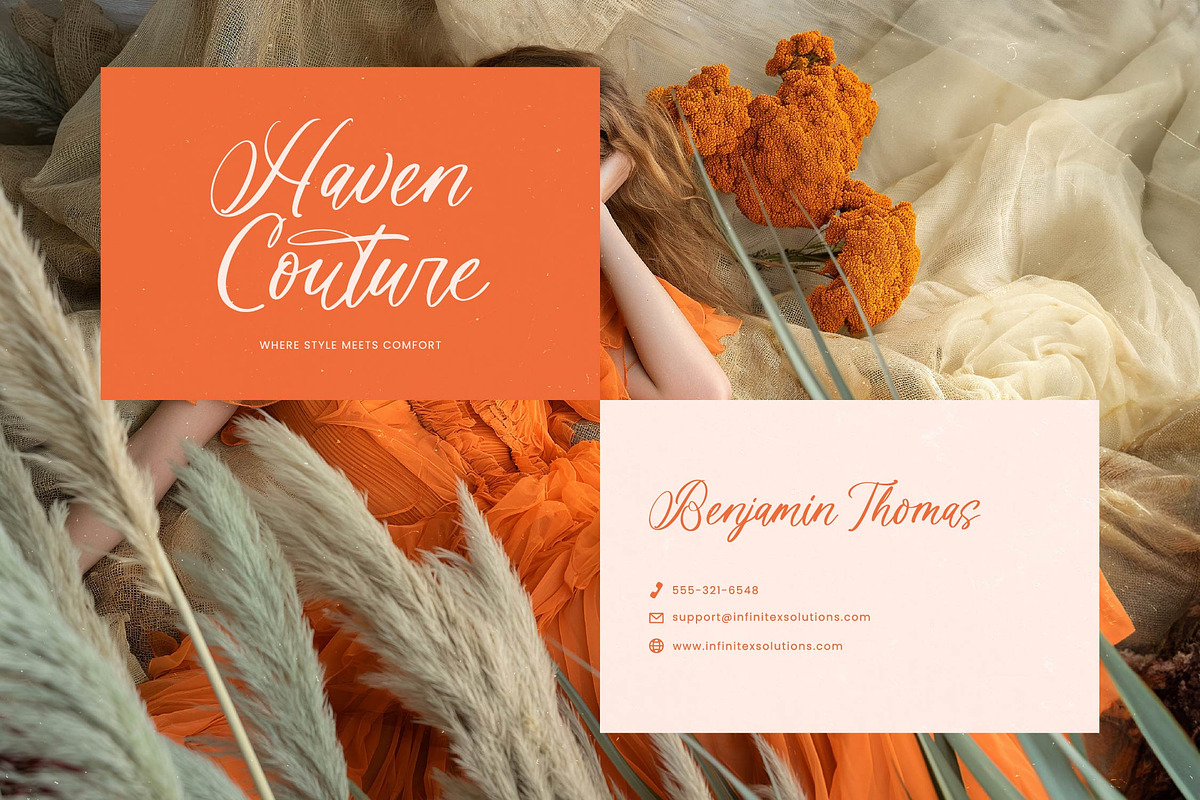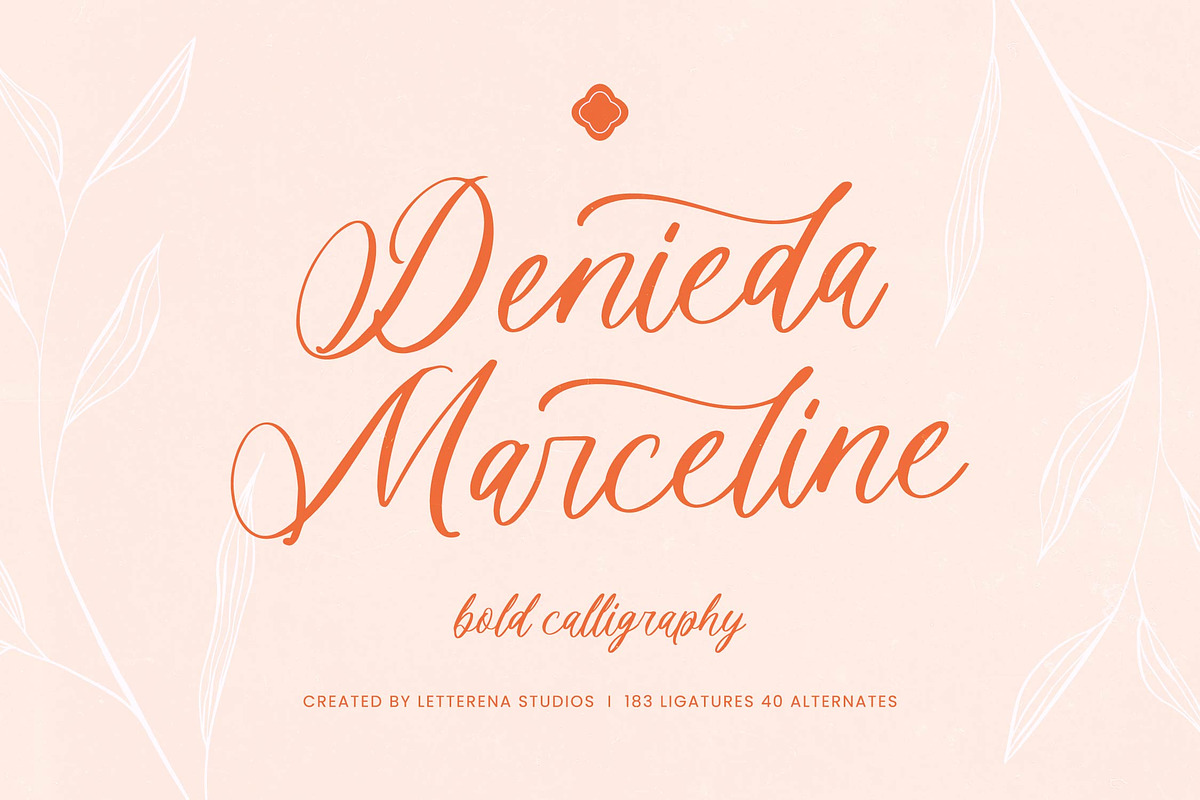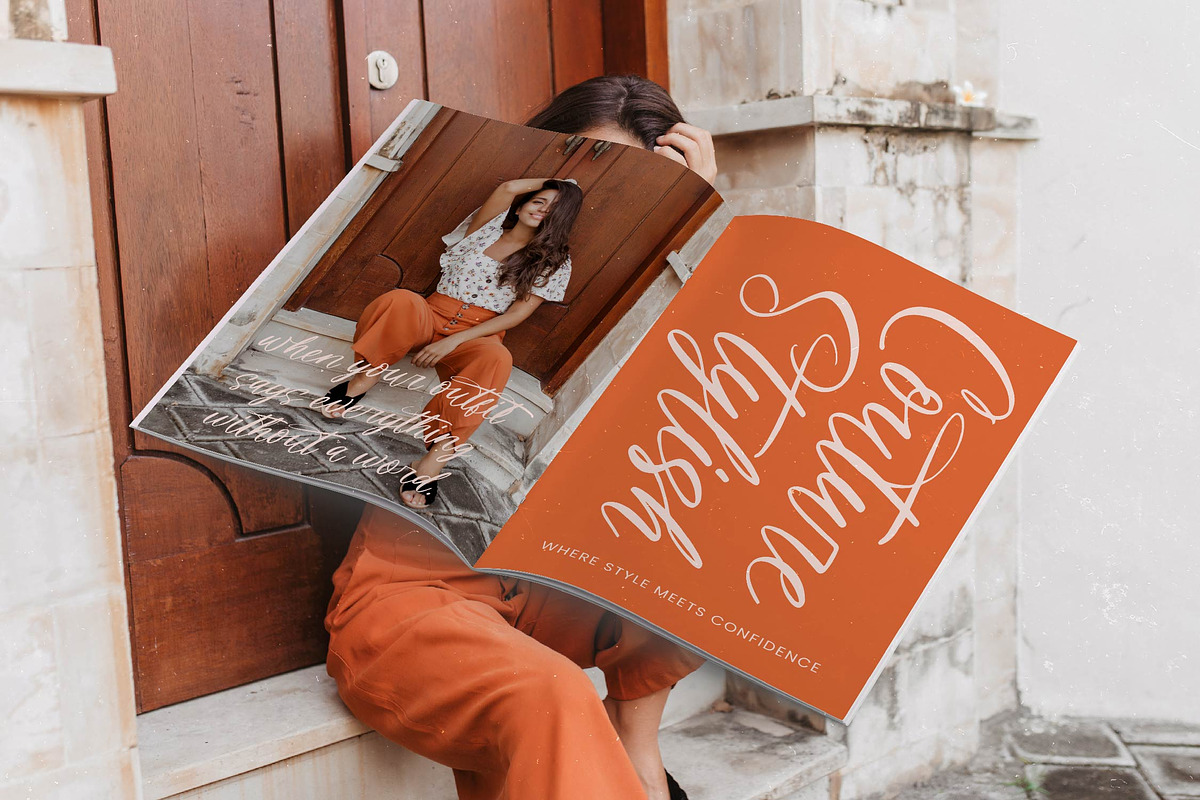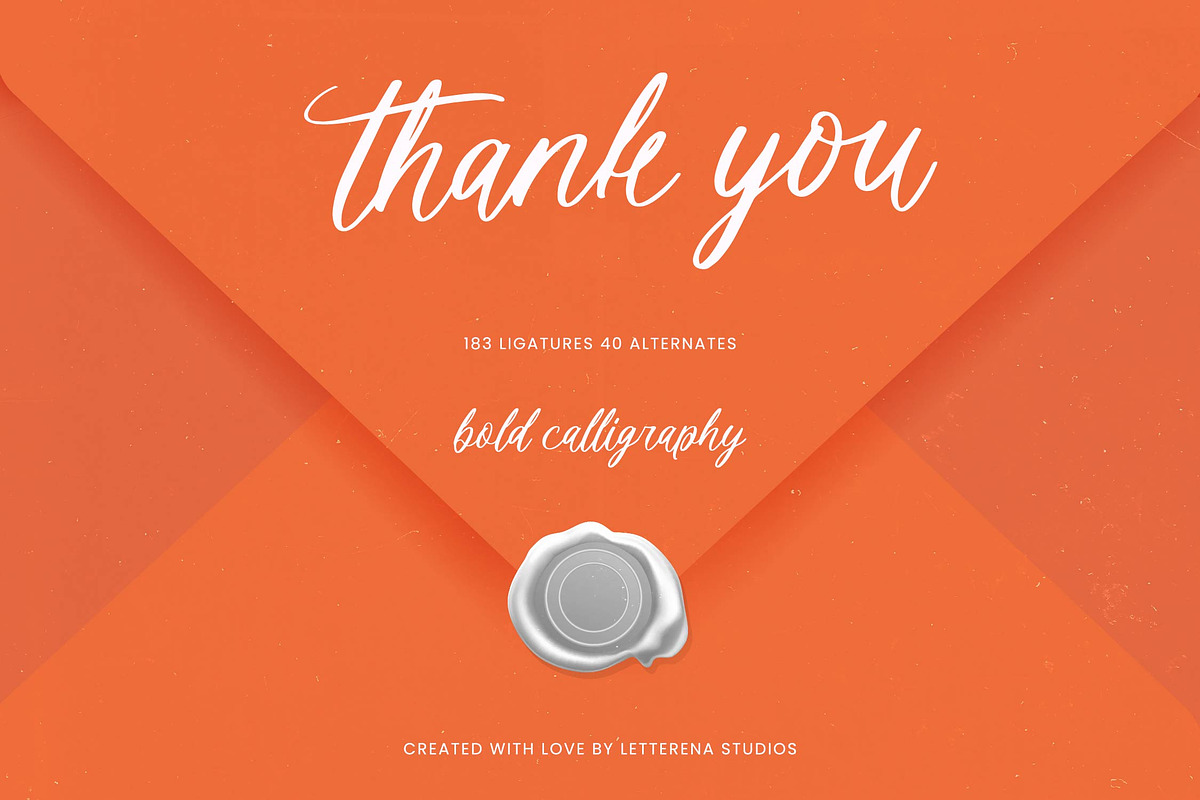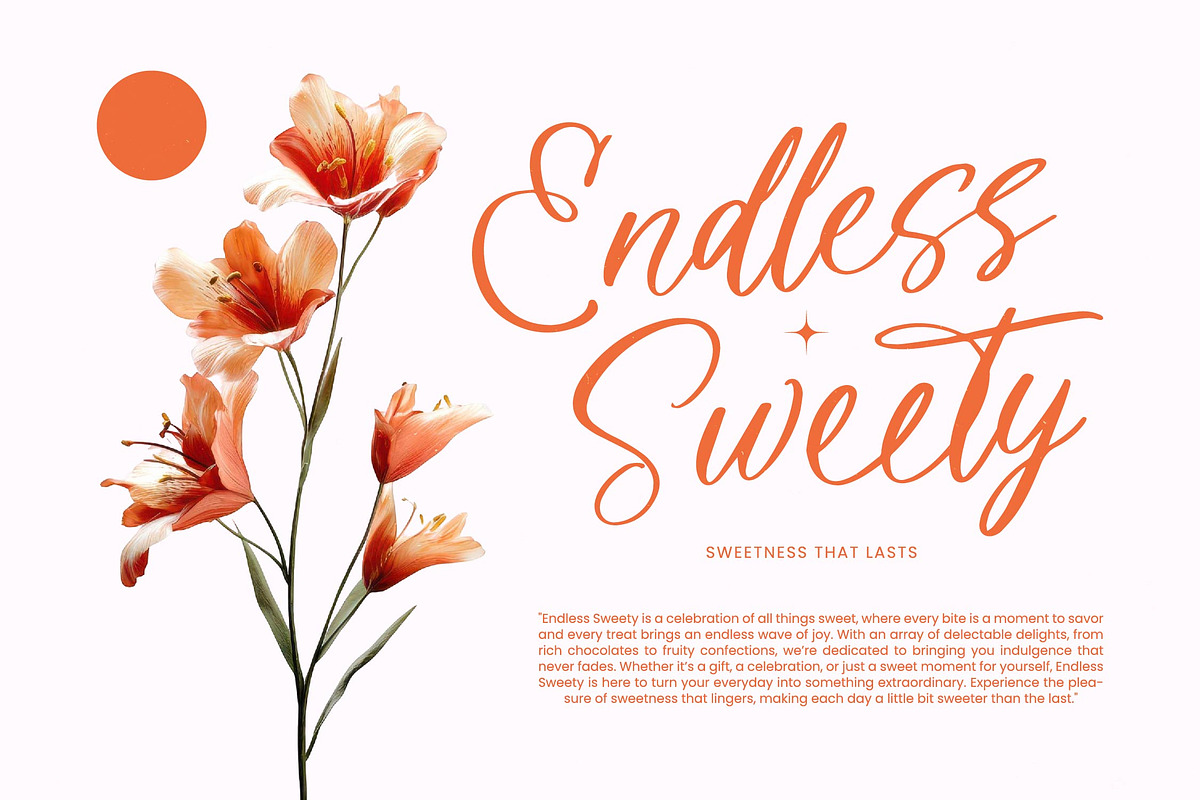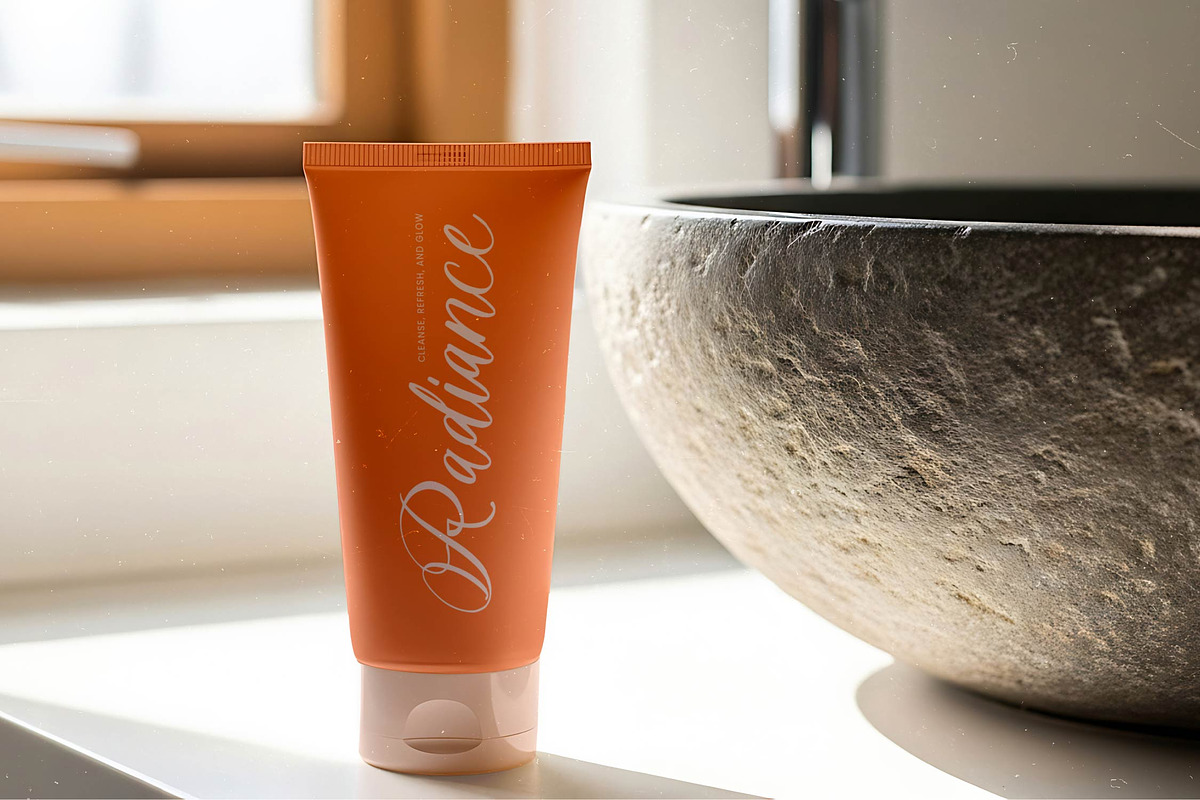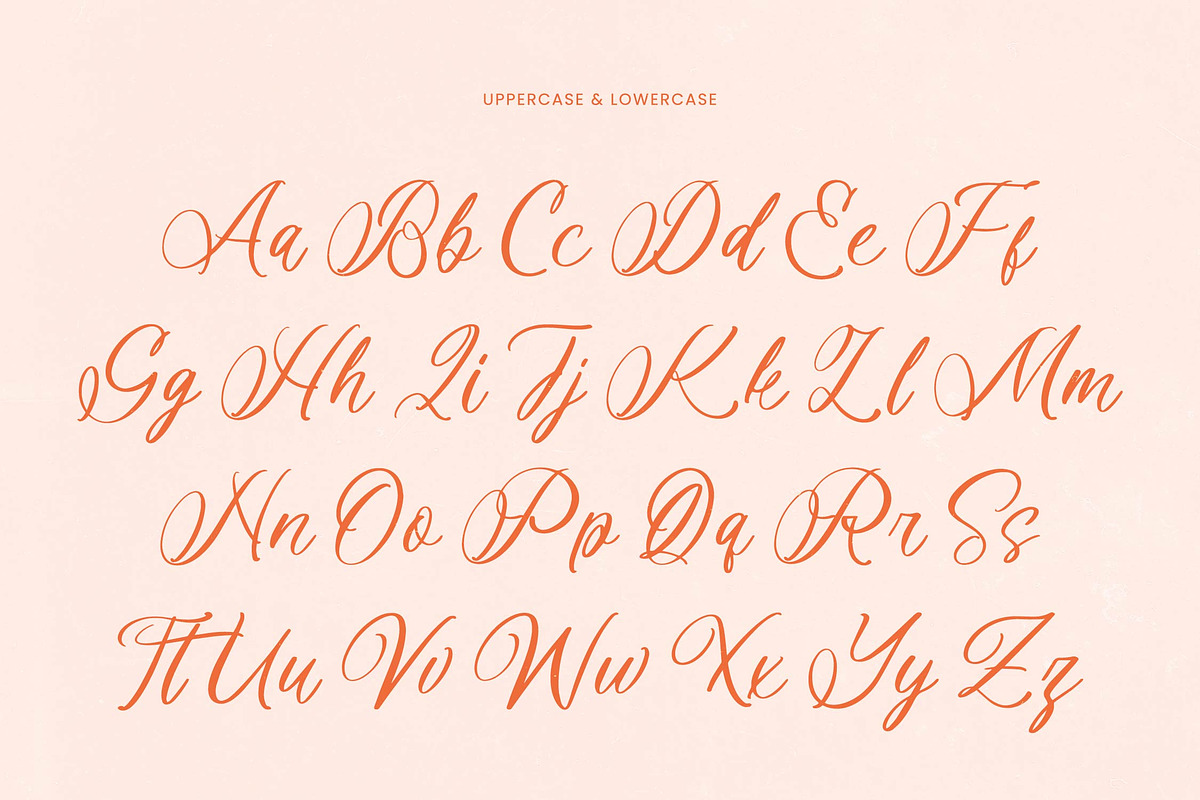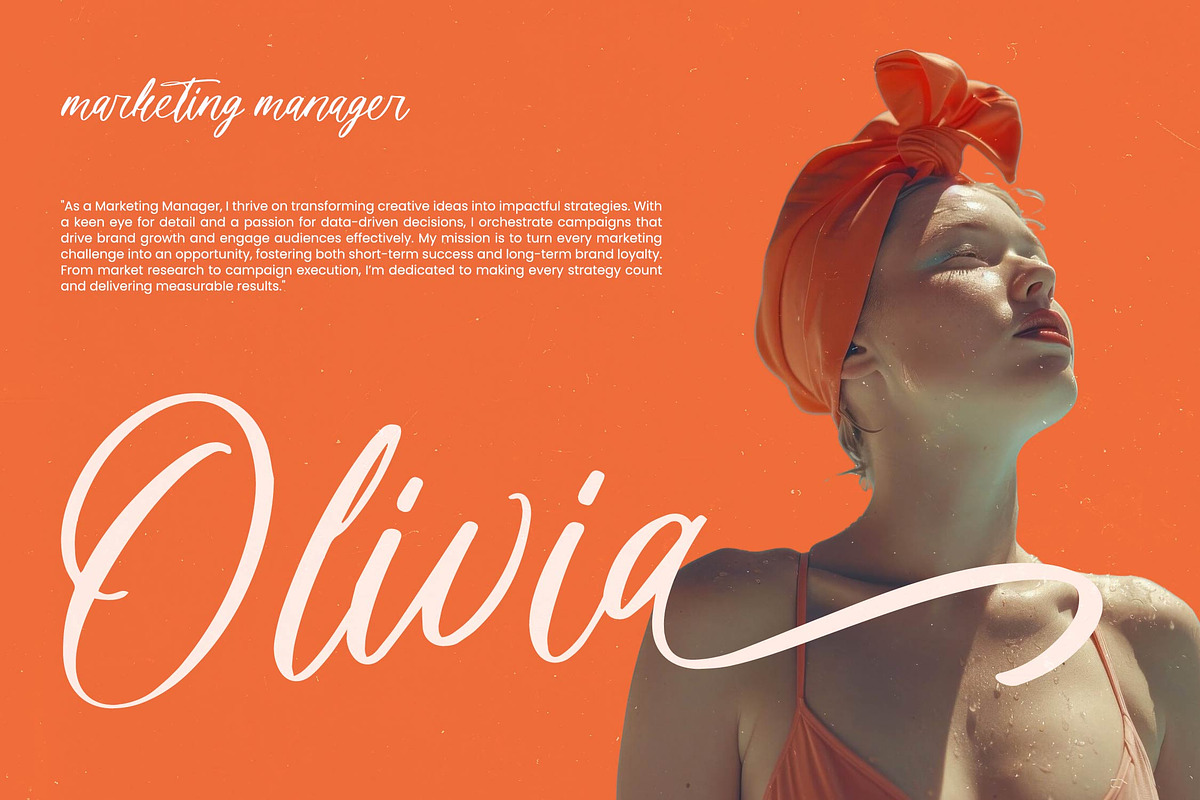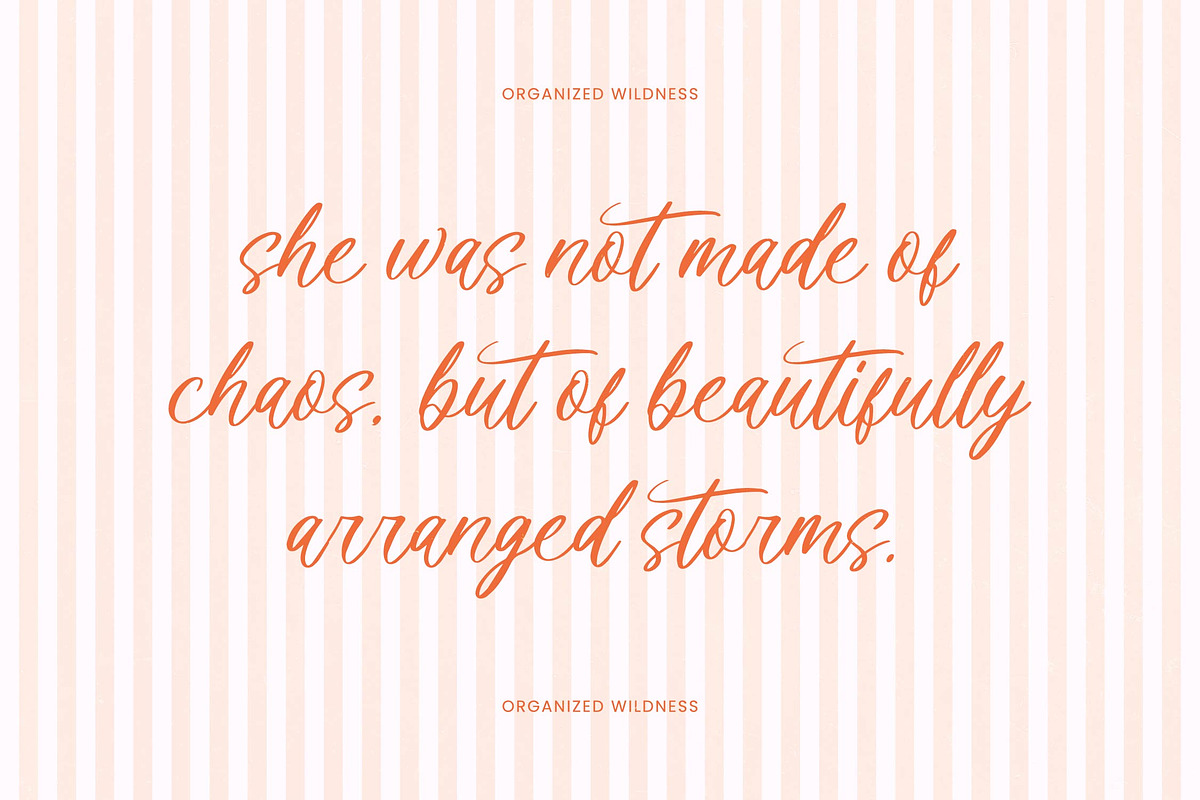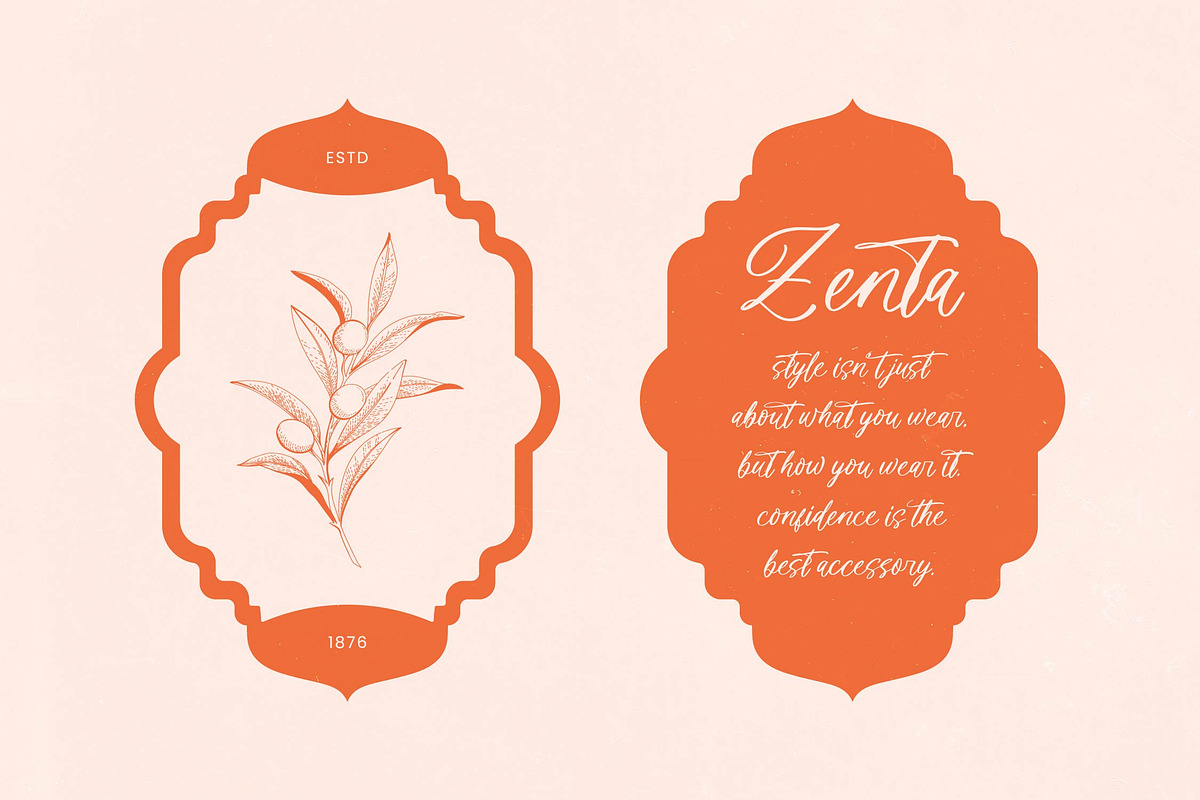
Denieda Marceline Bold Calligraphy
Denieda Marceline – Bold Calligraphy Font , Elevate your design projects with a touch of unmatched sophistication and fluid grace. Denieda Marceline – Bold Calligraphy Font is a stunning handcrafted script that captures the essence of high-end elegance through its rhythmic strokes and organic flow. This typeface is meticulously designed to provide a premium aesthetic, making it an essential tool for designers seeking to add a personal and luxurious touch to their creative repertoire.
Global reach meets artistic flair in this masterfully crafted typeface, offering an impressive collection of 183 ligatures and 40 alternates for ultimate customization. With its extensive multilingual support, Denieda Marceline – Bold Calligraphy Font adapts seamlessly across global markets, making it incredibly versatile for international projects. This versatile functionality ensures that your brand voice remains consistent and visually striking, regardless of the linguistic requirements of your audience.
Discover the transformative power of a font designed for high-impact luxury branding and sophisticated packaging. The Denieda Marceline – Bold Calligraphy Font is perfect for wedding invitations, editorial layouts, premium logo design, and high-fashion social media content. Its bold yet delicate balance makes it the ideal choice for any project that demands a sense of exclusivity and timeless beauty.
Experience the perfect blend of modern elegance and timeless tradition with a typeface that defines visual hierarchy. The high-contrast strokes of the Denieda Marceline – Bold Calligraphy Font create a captivating focal point that commands attention while maintaining a polished professional look. By choosing this bold calligraphy font, you are investing in a versatile design asset that will elevate your work from ordinary to extraordinary, leaving a lasting impression on every viewer.
Numerals
Punctuations (OpenType Standard)
Accents (Multilingual Characters)
Ligatures and Alternative Style Stylistic Set